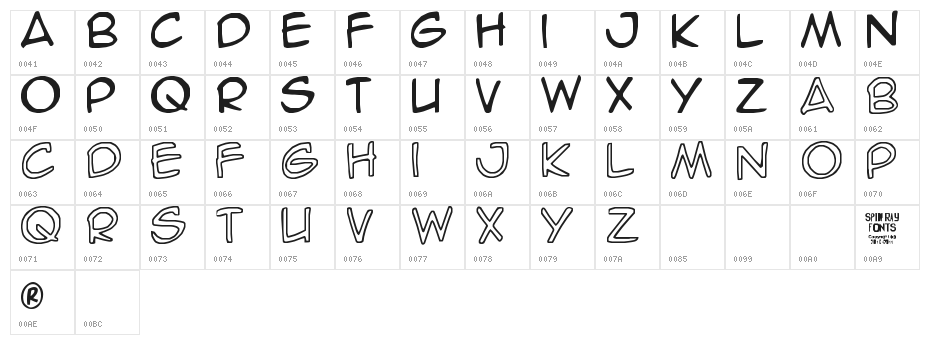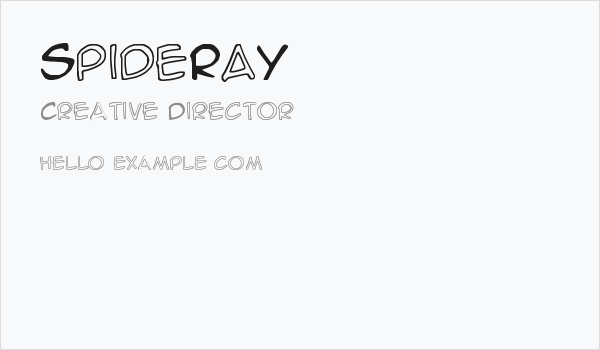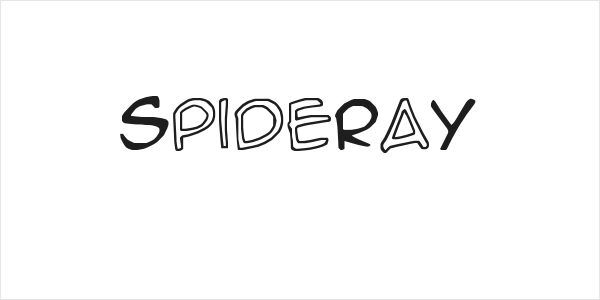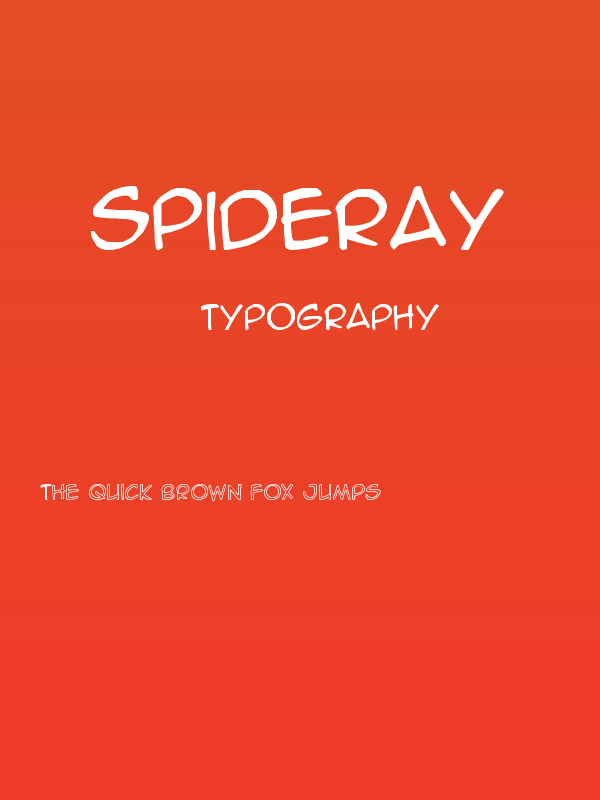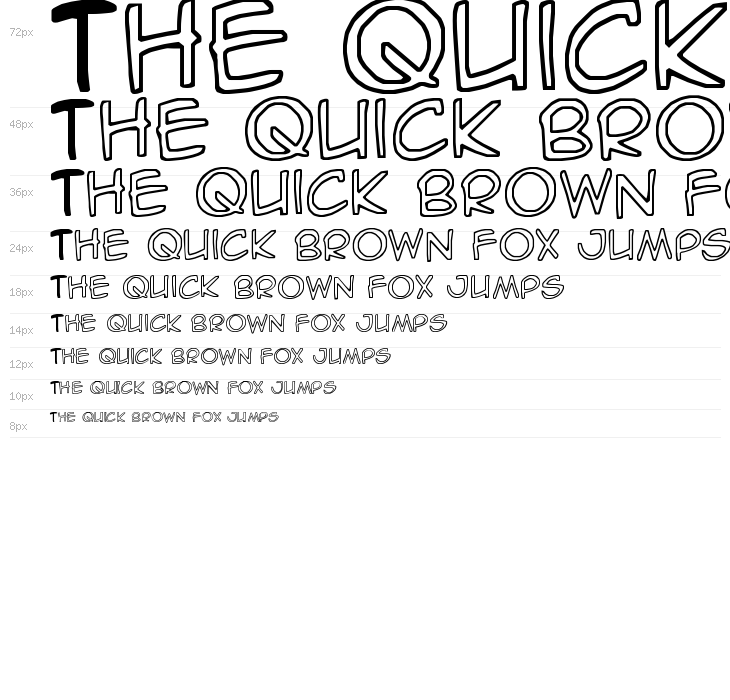
SpideRaY Font
SpideRaY Description
This playful and dynamic font features a bold, hand-drawn style with a slightly irregular baseline, giving it a lively and energetic appearance. The characters are rounded and thick, with a casual, informal feel that suggests movement and spontaneity. The uppercase letters are particularly striking, with their bold presence and unique character shapes that add a touch of whimsy. The font's outline variant adds an extra layer of creativity, making it versatile for various design needs. Its distinctive style makes it ideal for projects that require a fun and engaging visual impact.
| Proposed Projects | Ideal for children's books, comic strips, playful branding, and creative posters. |